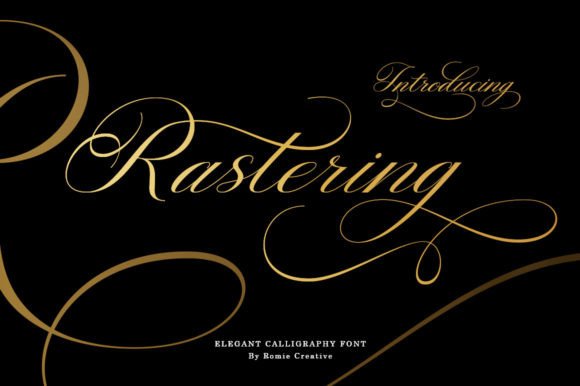
Behold Rastering, the exquisite script font family that will elevate your wedding photos to breathtaking heights. Crafted by the visionary artists at Romie Creative, Rastering is a symphony of elegance and sophistication, designed to capture the essence of your special day with artistry that never fades.
Journey through an enchanting world of flowing strokes, delicate curves, and elegant flourishes that dance across the page like a graceful ballet. Rastering's Uppercase letters make a grand statement, commanding attention with their bold presence, while the lowercase letters whisper sweet nothings, adding a touch of intimacy to your cherished moments.
Fall in love with the subtle nuances of each letterform, carefully crafted to evoke a sense of romance and timeless beauty. The meticulously designed swashes and alternate fonts provide endless opportunities for customization, allowing you to create a unique and personalized narrative that reflects the depth of your love story.
With Rastering, every word you write becomes a testament to your enduring bond, a tangible expression of the joy and love that radiates from your hearts. Whether it's your wedding invitations, save-the-dates, or cherished memories captured in an album, Rastering will transform your words into everlasting works of art.
Embrace Rastering, the script font family that will make your wedding photos a timeless masterpiece, a testament to the love that binds you together forever. Let your story unfold with the grace and elegance that only Rastering can provide.